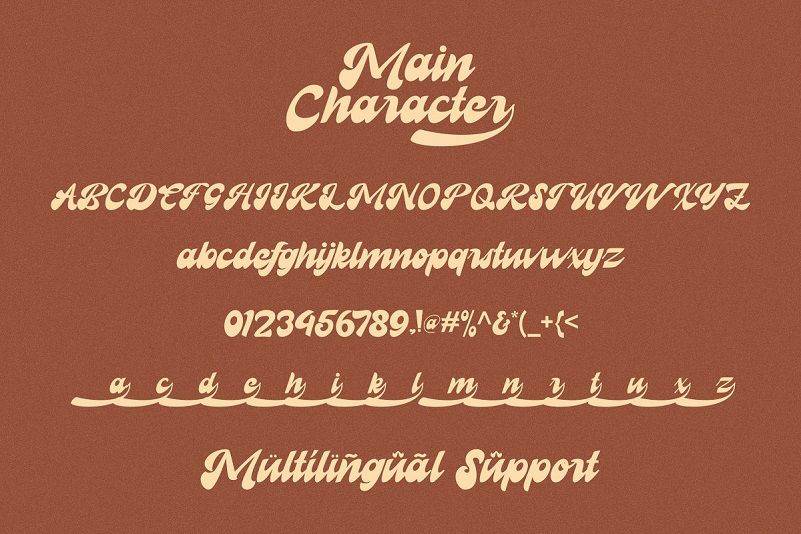
Recollet Retro Bold Script Font – Download Free
Recollet Retro Bold Script Font
Recollet is a powerful retro script with a vintage feel. Distinct design taste, combining classic retro style from the 1980s with fashionable, vintage, and sporty elements. This font template has a unique concept and is classy, sophisticated, artistic, and calm. The font is available in formats: TTF, OTF, and WOFF. The font has many amazing features such as Stylistic Alternates, Ligatures, Uppercase, Lowercase letters, Numbering, and Punctuations.
The font also has Multilingual Support. The font perfectly Works on PC and Mac both. Another great thing about this font is it has a Simple Installation process. Recollet Retro Bold Script Font Support Adobe Illustrator, Adobe Photoshop, Adobe InDesign, also works on Microsoft Word. The font is designed and published by string labs. After seeing this lovely retro typeface, you’ll feel instantly transported back in time. For designers who prefer to experiment with a vintage vibe, this typeface will be a perfect choice.
Recollet is ideal for retro enthusiasts and brands such as barbershops, motorcycle clubs, clothes, coffee shops, shoe businesses, vapour shops, hipsters, and many others. This typeface is ideal for any retro project, whether it’s making a vintage wallpaper or a brand’s packaging with a vintage feel. With the boldly applied font, the font also looks excellent on a t-shirt design. Many modern apparel firms have already utilized the font for billboards and packaging.
DesignerString labs.